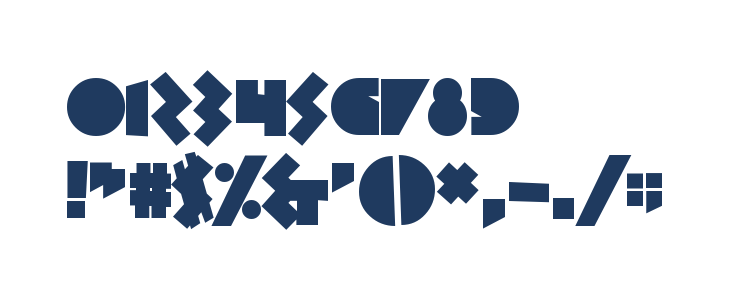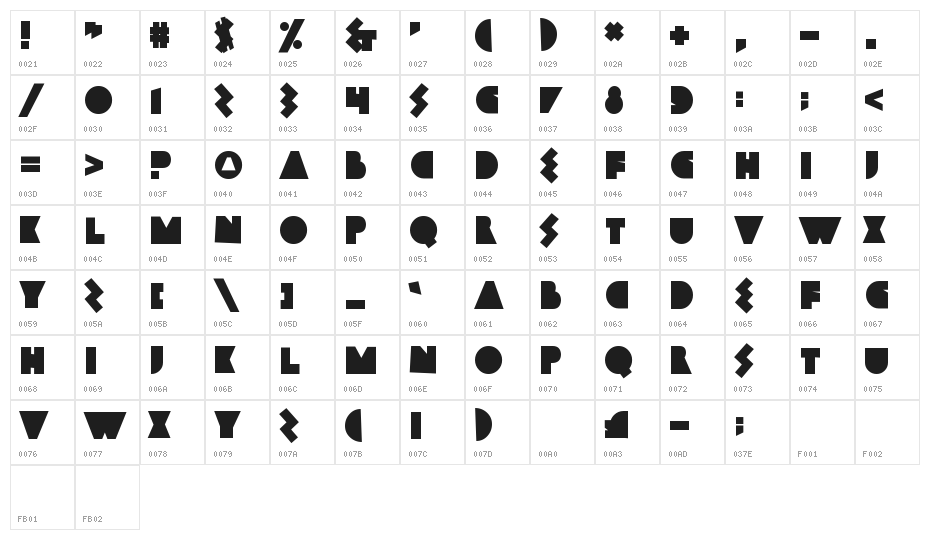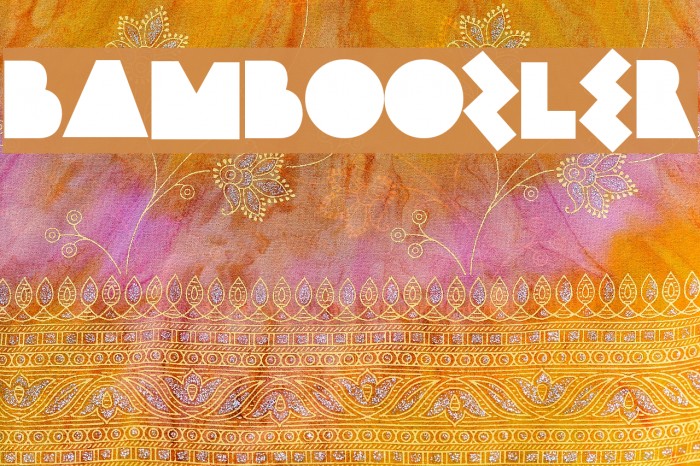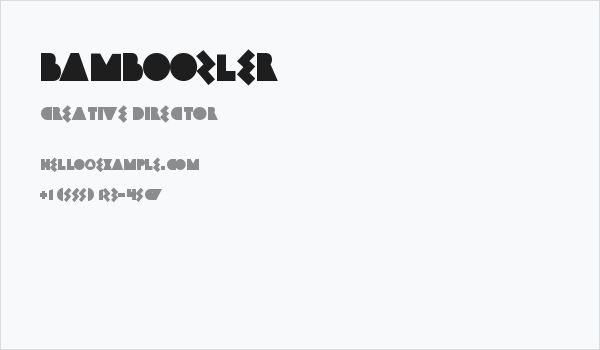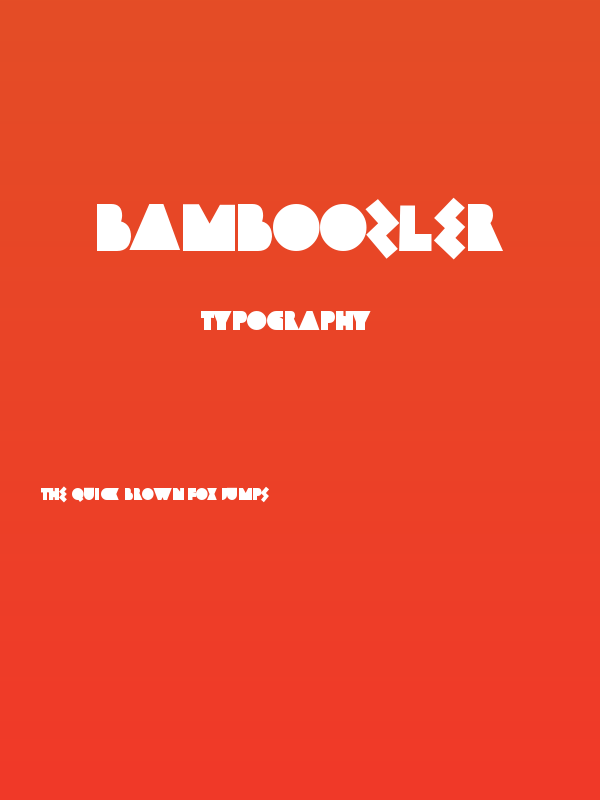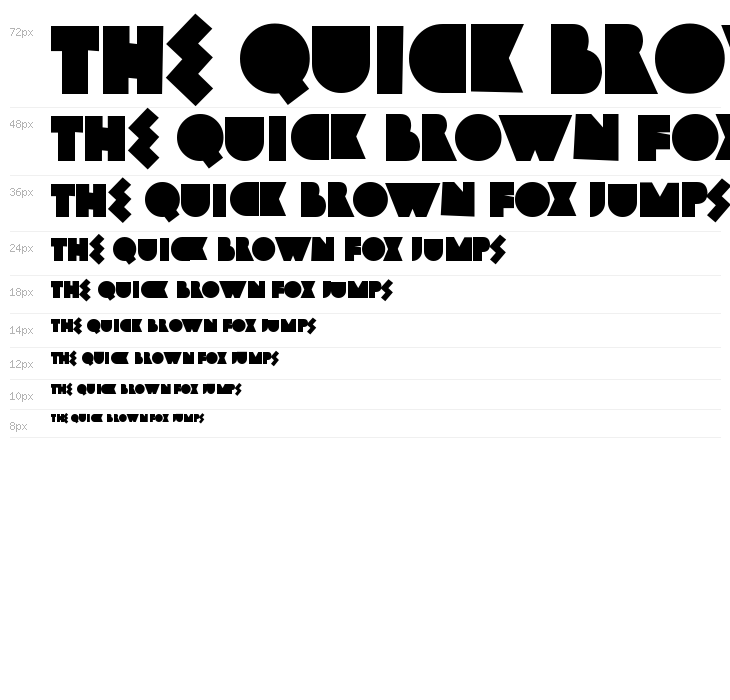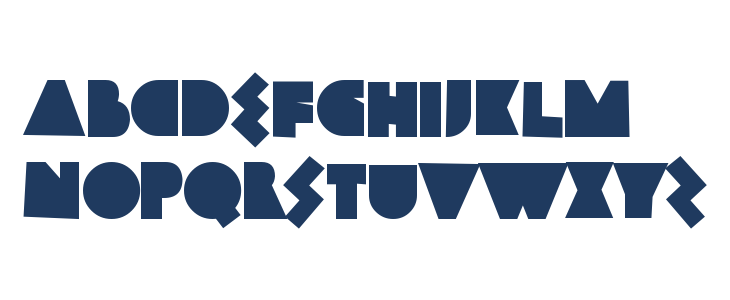
Bamboozler Font
Bamboozler Description
This font features a bold and geometric design, characterized by its sharp angles and strong presence. Each letterform is constructed with a combination of straight lines and angular cuts, creating a visually striking and modern appearance. The uppercase and lowercase letters maintain a consistent style, with a focus on symmetry and balance. Numbers and special characters follow the same geometric theme, ensuring uniformity across all elements. The font's unique style makes it ideal for projects that require a bold statement or a contemporary edge.
Proposed ProjectsIdeal for branding, posters, headlines, and any design requiring a bold, modern look.